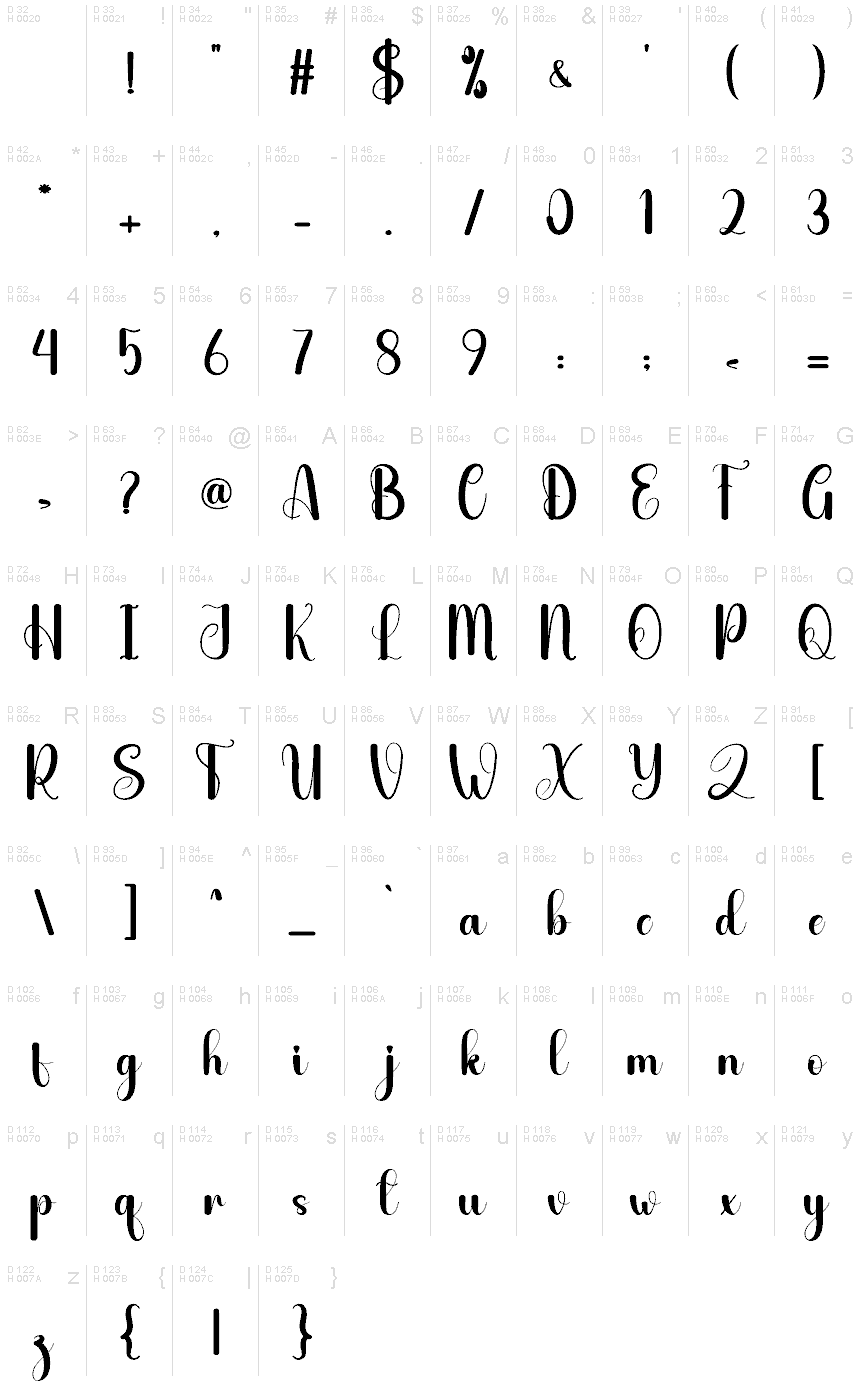
Bridal
Bridal font by Andi Moz is an elegant, sophisticated, and flowing handwritten font with a classical ornamental design. Inspired by classic calligraphic styles, this script-like font takes readers back in time for a classy almost royal feel.